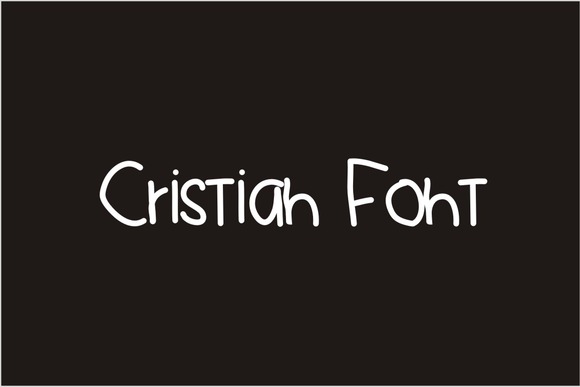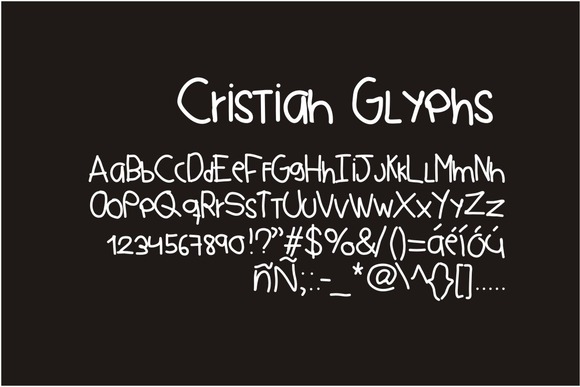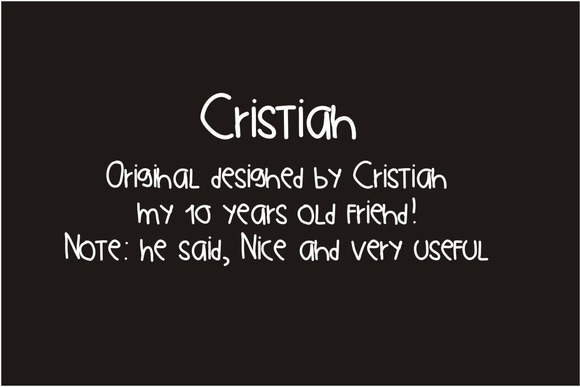
HomeScript FontsCristian Font Script Fonts Cristian Font FacebookTwitterPinterestWhatsApp Cristian Font Poster 2 Cristian Font Poster 3 About Cristian Font Cristian is perfect to simulate a childish handwriting. DOWNLOAD NOW People also explored Rattih Putri – Handwritten Font Medium Rosebud Font Rhythm Font Hello November Font Happy Snowman Font Find Lovers Font Male Burnt Orange Bella Canvas 3001 Smile Font Reggina Font 137 0 TagsCristian Font Previous articleDalina Script FontNext articleCaroThin Font LEAVE A REPLY Cancel reply Comment: Please enter your comment! Name:* Please enter your name here Email:* You have entered an incorrect email address! Please enter your email address here Website: Save my name, email, and website in this browser for the next time I comment. Personal Use Free Cloudy Night Personal Use Free Read more about this font Predators Personal Use Free Read more about this font Sui Genesis Personal Use Free Read more about this font Baby Cute Personal Use Free Read more about this font BLOG The 10 Best Handwriting Fonts to Add Personality to Your Designs 10 of the Best Handwriting Fonts for Adding Personality to Your Designs There will undoubtedly be no other better choice than handwriting fonts to give... Elegant Wedding Invitation Fonts – Handwritten & Script Fonts Top 7 Google Fonts Alternatives for Faster and Privacy-Friendly Web Design (2025) Transform Your Website: Elevate Your Typography with 7 Best Web Font Generators